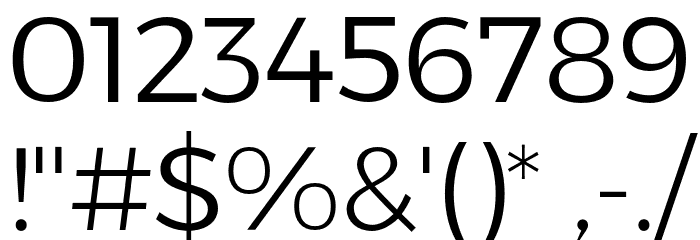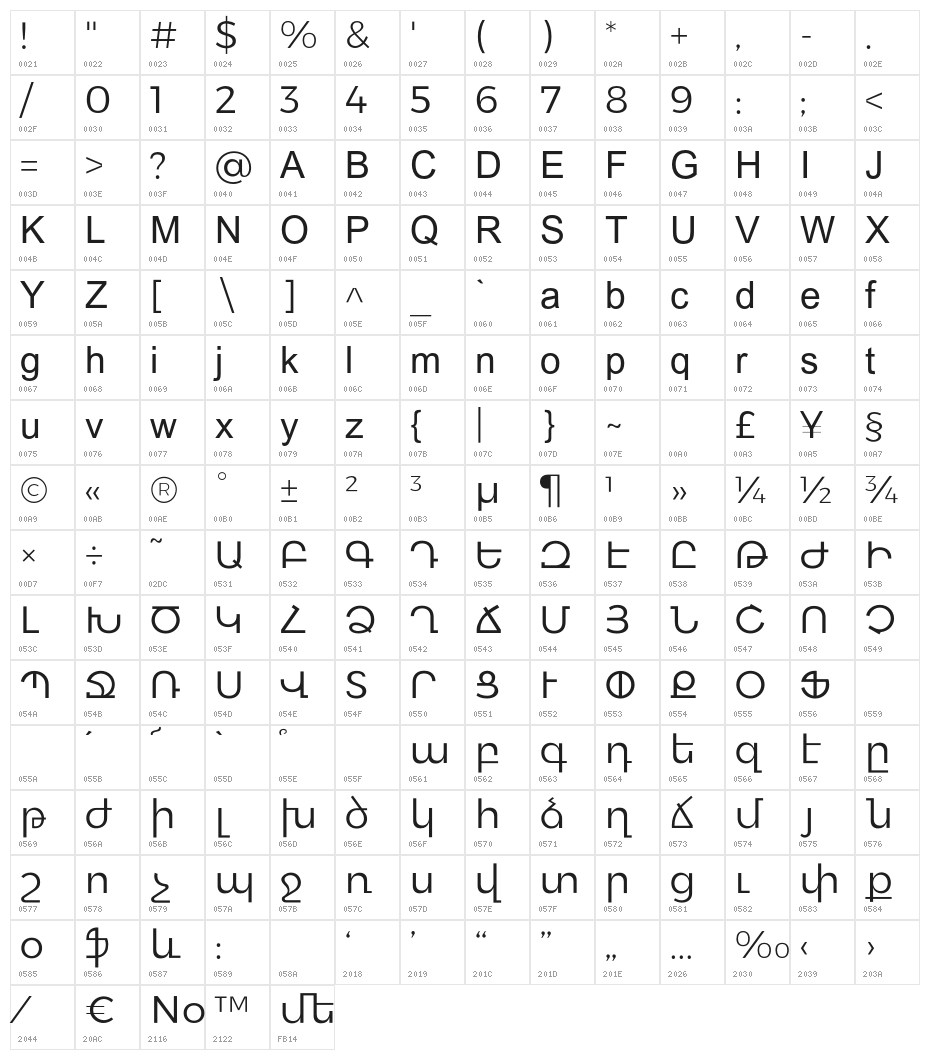
Bokonique-Light Font
Bokonique-Light Description
This font features a clean and modern sans-serif design with a light weight, making it ideal for a wide range of applications. The characters are evenly spaced with a normal width, providing excellent readability. The uppercase and lowercase letters are well-proportioned, and the numerals are clear and distinct. Special characters are included, maintaining the font's cohesive style. The overall appearance is sleek and professional, suitable for both digital and print media.
| Proposed Projects | Ideal for web design, corporate branding, user interfaces, and editorial layouts. |